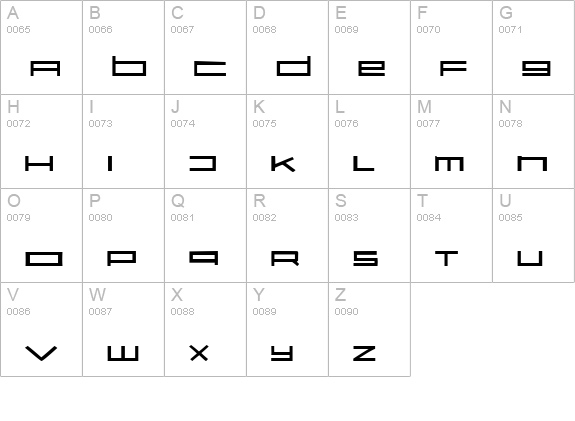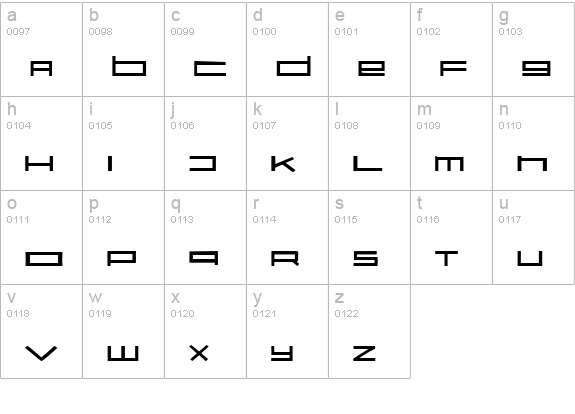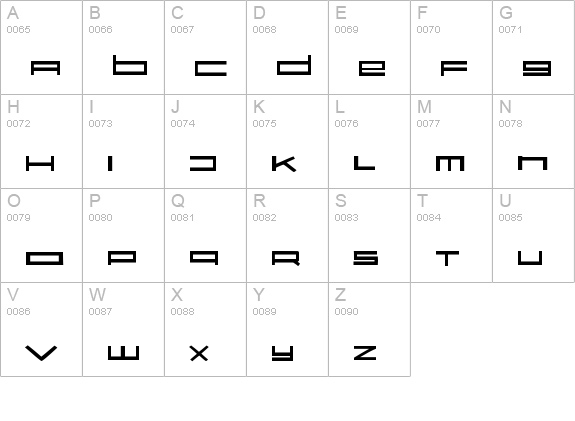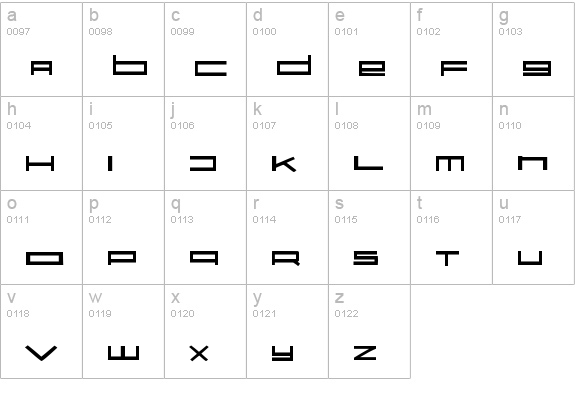
Karelia Font Details
Karelia font is a stunning display typeface that effortlessly combines elegance and versatility. With its clean lines and unique letterforms, this font is perfect for adding a touch of sophistication to any project. Whether you're designing a logo, creating a poster, or crafting a website, Karelia font will undoubtedly make a lasting impression. One of the best aspects of Karelia font is that it is available for free download at FontsMarket.com. This means that you can easily access this remarkable font and utilize its beauty without any cost. FontsMarket.com offers a wide range of high-quality fonts, and Karelia font is just one of the many gems you'll find there. The sleek and modern design of Karelia font makes it suitable for various design purposes. Its legibility is exceptional, ensuring that your message will be effortlessly communicated to your audience. The carefully crafted characters exude elegance, making Karelia font an excellent choice for branding projects or editorial designs. Moreover, Karelia font comes with a variety of weights and styles, allowing for even more creative possibilities. Whether you prefer a bold and impactful statement or a more subtle and refined look, this font has got you covered. So, why wait? Experience the artistic beauty of Karelia font for yourself by downloading it for free at FontsMarket.com. Elevate your designs to new heights with this captivating font that combines style, versatility, and accessibility all in one package. Don't miss out on the opportunity to enhance your projects with the timeless elegance of Karelia font.